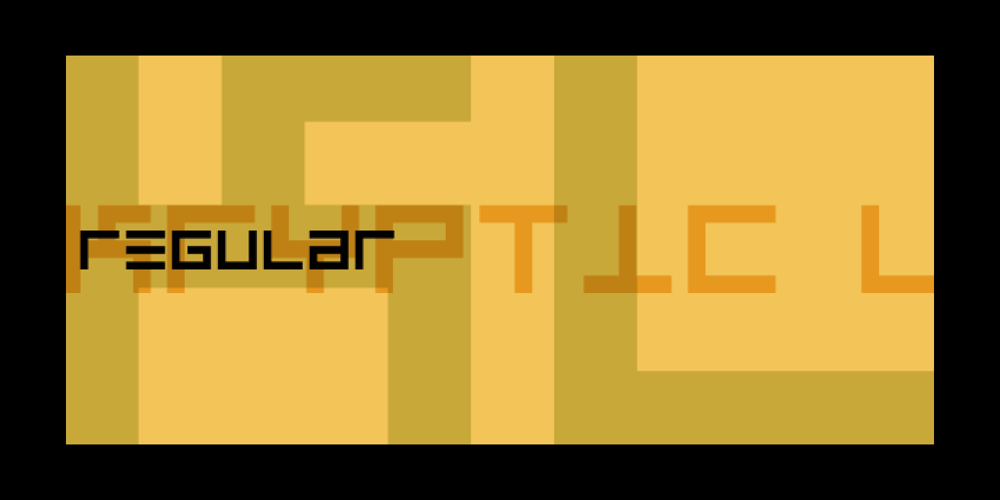
Kryptic LP Font Family was designed by Garrett Boge and published by LetterPerfect. Kryptic LP contains 1 styles and family package options. Kryptic is based on a design for computer optical character recognition (OCR) from the 1960s developed by Epps & Evans at the National Physical Laboratory. Its pure geometric and elemental shapes create graphic patterns and visual puzzles that only secondarily communicate meaning. Not recommended for extended text, unless intentionally encrypting!